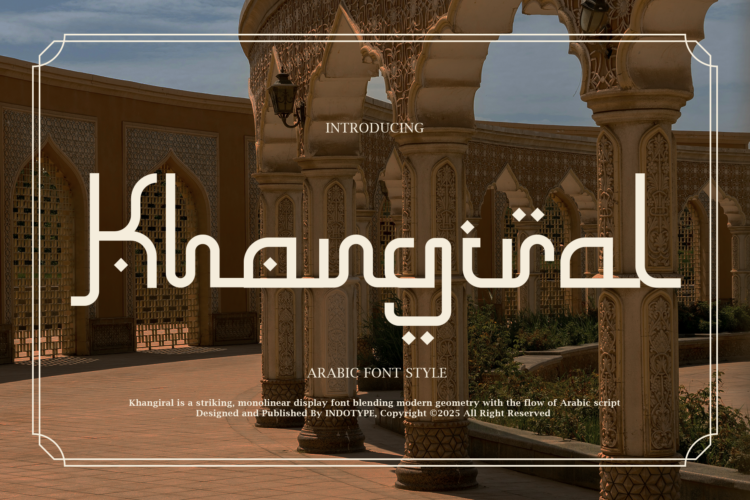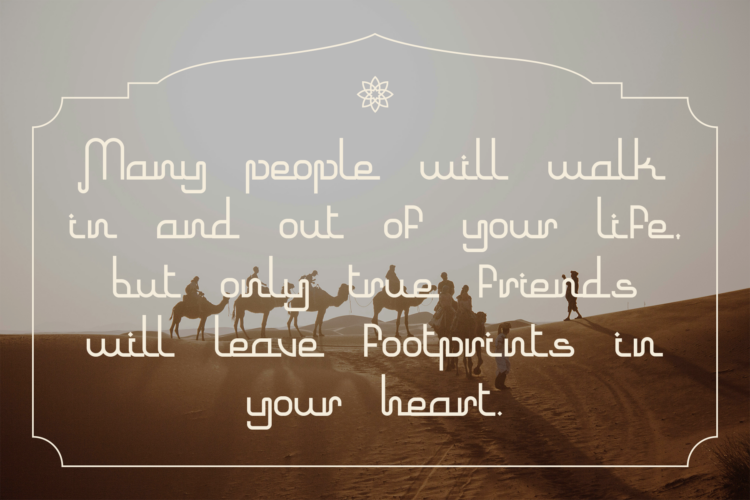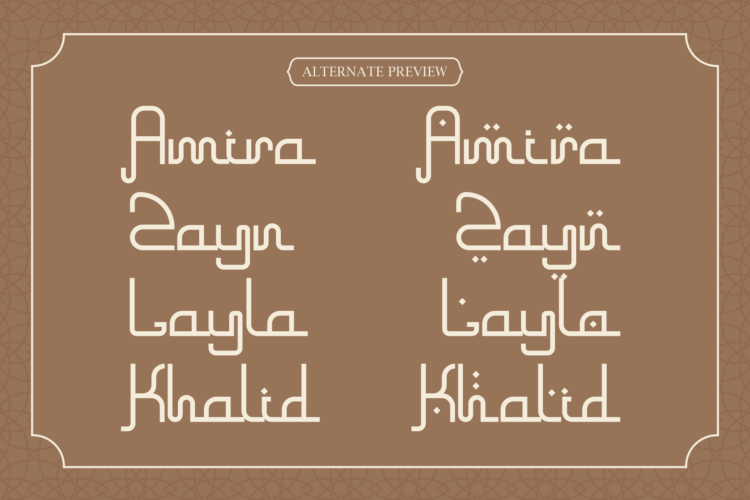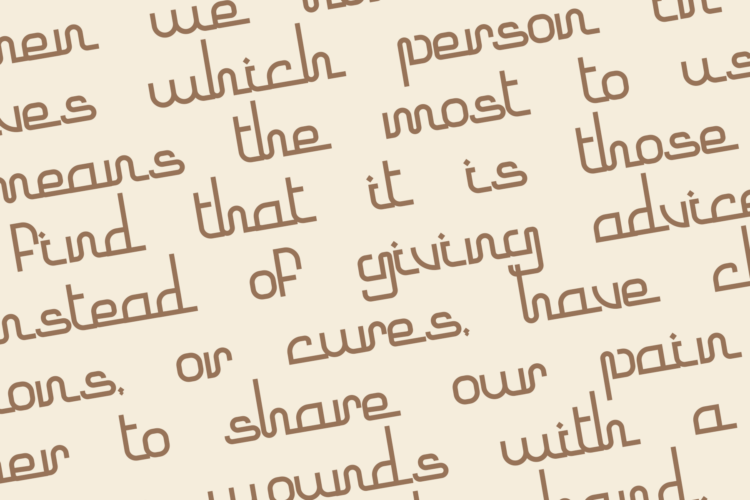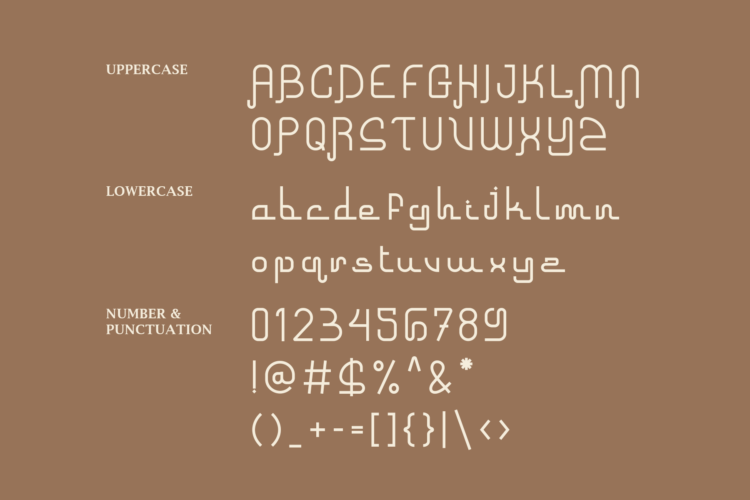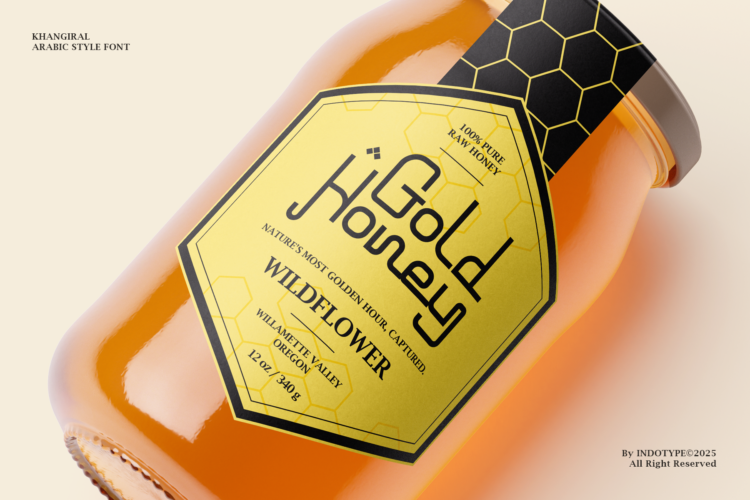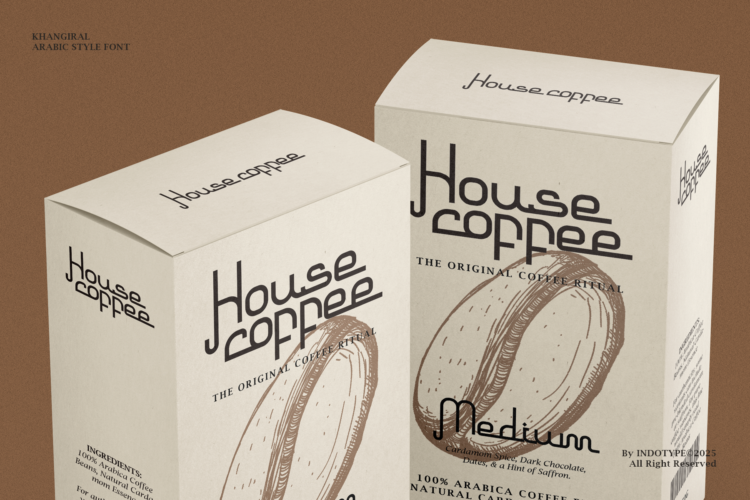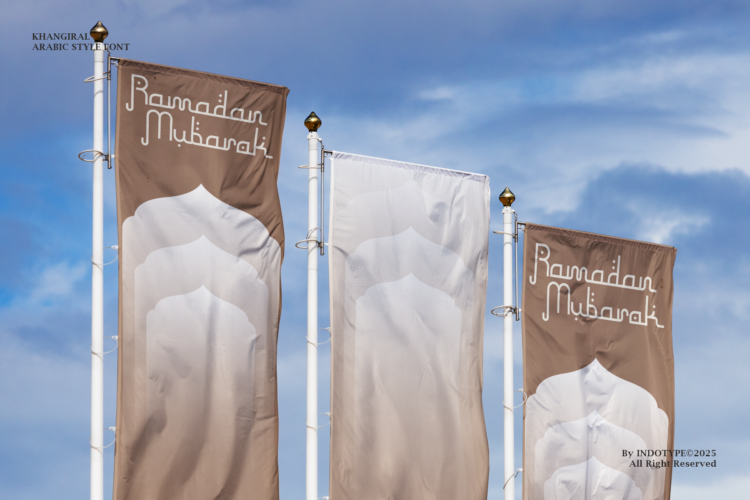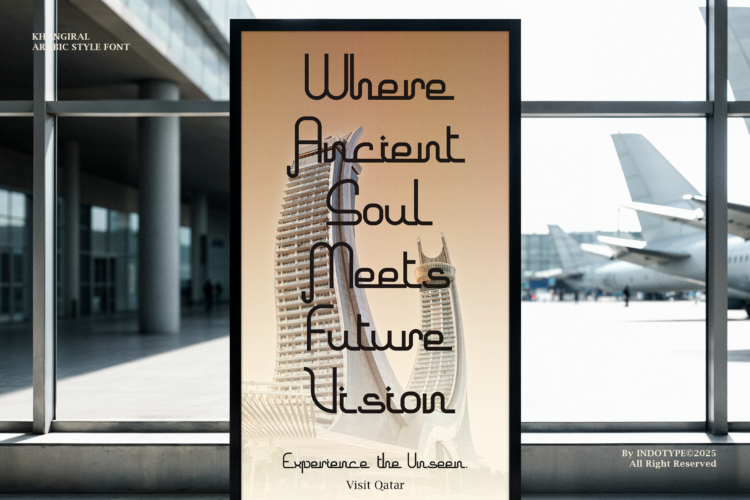
Khangiral is a striking and contemporary display font that masterfully merges clean, modern geometry with the elegant, flowing essence of Arabic script. Its monolinear construction—featuring consistent stroke weights—creates a sleek, minimalist aesthetic that is both globally sophisticated and culturally resonant. This unique blend results in a typeface that feels fresh, approachable, and distinctly modern, while paying homage to traditional calligraphic forms. Perfect for branding that seeks a cosmopolitan edge, Khangiral excels in logos, packaging, editorial headlines, and digital interfaces. Its geometric clarity ensures legibility and impact at any size, while its inherent flow adds a touch of organic warmth. Khangiral is the ideal choice for projects that aim to bridge cultural aesthetics with a forward-thinking, clean design philosophy.
- Ideal for:Â Modern Logos & Branding, Cosmopolitan Packaging, Editorial Headlines, Tech Startups with Global Appeal, Fashion Labels, Cultural Festival Design.
- Classification:Â Display, Sans-Serif (Geometric), Arabic-Style, Monolinear.
- Attributes:Â Sleek, Modern, Flowing, Minimalist, Sophisticated, Culturally-Inspired, Clean.
- Thin, Regular, Medium, Semi Bold, Bold Weight Styles and Italic Style on Each Weight
- Including Alternate Glyphs